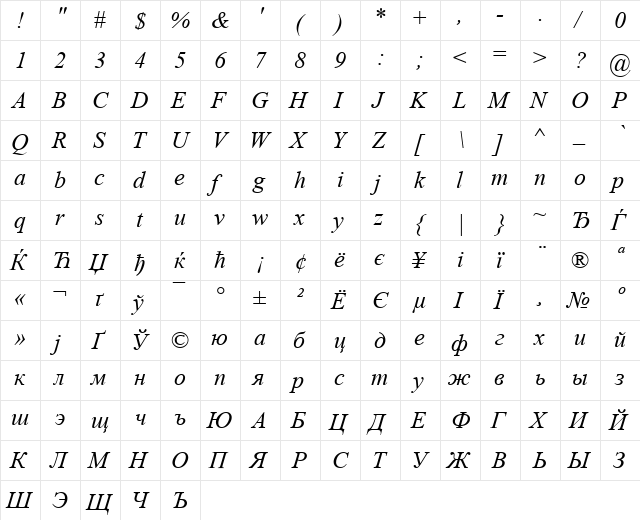
Times New Roman KOI8 Italic
Italic ·  Monotype Type Drawing Office - Stanley Morison, Victor Lardent 1932 ·
DesignerMonotype Type Drawing Office - Stanley Morison, Victor Lardent 1932
Design Context for Times New Roman KOI8 Typeface
Times New Roman KOI8 offers clean, dependable letterforms without strong stylistic allegiance, making it a practical choice for designers who need flexibility. The dynamic lean of this cut emphasises speed and emphasis in any layout.